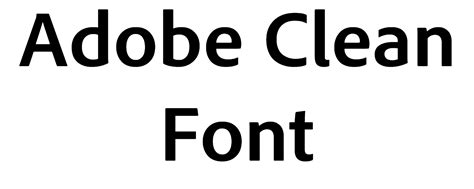
Discover the Best Adobe Clean Font Alternatives for Your Design Needs
Looking for a sleek and modern font alternative to Adobe Clean? Check out our curated list of top picks for your next design project.
Are you tired of using the same old fonts for your projects? Do you want to add a touch of elegance and sophistication to your designs? Look no further than Adobe Clean font alternative! This font is sleek, modern, and versatile, making it the perfect choice for any project. Whether you're creating a website, designing a poster, or crafting a business card, Adobe Clean will make your work stand out from the rest.
But what if you don't have access to Adobe Clean? Don't worry, there are plenty of alternatives that can give you the same polished look. One option is Helvetica, which has been a go-to font for designers for decades. Another is Proxima Nova, which combines the simplicity of Helvetica with a bit of personality. And if you're looking for something a little more unique, try Avenir, which has a clean, modern feel with a touch of warmth.
No matter which alternative you choose, make sure to experiment with different weights and styles to find the perfect fit for your project. With so many options available, there's no excuse for using boring, outdated fonts. Upgrade your designs today with an Adobe Clean font alternative!
Introduction
Adobe Clean is a widely-used sans-serif font that has become synonymous with Adobe's branding. The font is known for its clean and modern look, making it a popular choice for designers looking to create sleek designs. However, not everyone has access to the Adobe Creative Suite or wants to pay for the use of Adobe Clean. In this article, we will explore some alternative fonts that can be used as a replacement for Adobe Clean.
Roboto
Roboto is a Google font that has gained popularity in recent years due to its clean and modern look. Like Adobe Clean, Roboto is a sans-serif font that is easy to read and looks great on both digital and print media. The font was designed by Christian Robertson and was first introduced in 2011. Since then, it has become a favorite of many designers due to its versatility and readability.
Open Sans
Open Sans is another popular Google font that can be used as an alternative to Adobe Clean. The font was designed by Steve Matteson and was first released in 2011. Open Sans has a clean and modern look that makes it a popular choice for websites and other digital media. It is also a versatile font that can be used for both headings and body text.
Lato
Lato is a sans-serif font that was designed by Łukasz Dziedzic. The font has a clean and modern look that makes it a great alternative to Adobe Clean. Lato was first released in 2010 and has since become a popular choice for web designers due to its readability and versatility. It is also a free font that can be used for commercial projects.
Montserrat
Montserrat is a sans-serif font that was designed by Julieta Ulanovsky. The font has a clean and modern look that makes it a great alternative to Adobe Clean. Montserrat was inspired by the signage found in the Montserrat neighborhood of Buenos Aires, Argentina. The font was first released in 2011 and has since become a popular choice for both print and digital media.
Source Sans Pro
Source Sans Pro is a sans-serif font that was designed by Paul D. Hunt. The font has a clean and modern look that makes it a great alternative to Adobe Clean. Source Sans Pro was first released in 2012 and has since become a popular choice for web designers due to its readability and versatility. The font is also available for free on Adobe's website.
Nunito
Nunito is a sans-serif font that was designed by Vernon Adams. The font has a clean and modern look that makes it a great alternative to Adobe Clean. Nunito was first released in 2012 and has since become a popular choice for web designers due to its readability and versatility. The font is also available for free on Google Fonts.
Conclusion
In conclusion, there are many alternatives to Adobe Clean that can be used for both print and digital media. These fonts offer a clean and modern look that is similar to Adobe Clean while also being versatile and easy to read. Whether you are a designer looking for a new font or a business owner looking to create marketing materials, these fonts are sure to impress. So the next time you need a font that looks great and is easy to read, consider using one of these alternatives to Adobe Clean.
A Minimalist's Guide to Typography: Finding an Alternative to Adobe Clean FontTypography is a vital aspect of design that can make or break a project. It sets the tone and conveys a message. Adobe Clean Font has been a popular choice among designers, with its sleek and modern look. However, not everyone has access to this font, and even if they do, it may not be the best fit for their project. Seeking simplicity and a cleaner look? Here are some of the best Adobe Clean Font replacements.Saner Sans-Serif: Discovering Clean and Modern Fonts to Replace Adobe CleanSans-serif fonts are often the go-to for a clean and modern look. Replacements for Adobe Clean include Montserrat, Roboto, and Open Sans. Montserrat is a geometric sans-serif font that is versatile and easy to read. Roboto has a slightly wider letter spacing, making it perfect for larger blocks of text. Open Sans is a humanist sans-serif font that gives a friendly and approachable feel to any design.Going for a Sleek Look? Try These Adobe Clean Font AlternativesFor a sleek look, consider using Proxima Nova, Gotham, or Avenir. Proxima Nova is a modern geometric sans-serif font that is perfect for headings and subheadings. Gotham is a bold font that makes a statement and adds personality to any design. Avenir has a clean and simple look, with a variety of weights to choose from.The Best Clean Fonts to Use Instead of Adobe Clean – Can You Spot the Difference?If you're looking for a font that is similar to Adobe Clean but not an exact match, try Helvetica, Lato, or Futura. Helvetica is a classic font that has been around for decades, and it still looks great today. Lato is a versatile font that works well in both print and digital media. Futura has a geometric look and a modern feel, making it perfect for logos and branding.No More Adobe Clean? Not a Problem! Here are the Most Comparable Fonts to Choose FromIf you're looking for a font that is comparable to Adobe Clean in terms of style and simplicity, try Proxima Nova, Open Sans, or Montserrat. Proxima Nova has a similar geometric look and feel, while Open Sans and Montserrat are both humanist sans-serif fonts that are easy to read and versatile.For a Crisp and Clear Website: Alternatives to Adobe Clean FontWhen it comes to web design, legibility is key. Some great alternatives to Adobe Clean for websites include Roboto, Open Sans, and Montserrat. These fonts are all easy to read on screens of all sizes and are perfect for headings, subheadings, and body copy.Convincingly Clean: Fonts that Can Replace Adobe Clean in Your Next ProjectIf you're looking for a font that is clean and modern, but not too similar to Adobe Clean, try using Proxima Nova, Gotham, or Lato. These fonts all have their own unique personalities and can add a touch of flair to any design.Breaking Free from Adobe Clean: A Lineup of Clean and Contemporary FontsThere are plenty of clean and contemporary fonts out there that can replace Adobe Clean. Some great options include Proxima Nova, Open Sans, Roboto, and Montserrat. Each of these fonts has its own unique look and feel, and can help your design stand out from the crowd.A World of Options: Finding the Right Adobe Clean Font Replacement for Your ProjectIn the end, choosing the right font for your project comes down to personal preference and the requirements of the project itself. Whether you're looking for a sleek and modern font, a classic font with a timeless look, or something in between, there are plenty of great alternatives to Adobe Clean out there. So go ahead and experiment – you might just find your new favorite font.Looking for a sleek and modern font alternative to Adobe Clean? Well, you're in luck! There are various substitutes available in the market that can give you a similar look and feel. Although Adobe Clean is a great font, it's not always accessible to everyone as it comes at a high price. So, here are some pros and cons of using an Adobe Clean font alternative.Pros:1. Cost-effective: One of the significant advantages of using an Adobe Clean font alternative is that it is much cheaper than Adobe Clean itself. You can get a similar look for a fraction of the price.2. Variety: There are numerous alternatives available that mimic Adobe Clean's clean and modern look, giving you more options to choose from.3. Compatibility: Most Adobe Clean font alternatives are compatible with various devices and software, making it easier to use across multiple platforms.Cons:1. Quality: While most Adobe Clean font alternatives are of good quality, they may not have the same level of precision and attention to detail as Adobe Clean.2. Branding: If you're using an Adobe Clean font alternative for commercial purposes, it may not give your brand the same credibility as using the original Adobe Clean font.3. Licensing: Some Adobe Clean font alternatives may have specific licensing requirements, which can be confusing and time-consuming.In conclusion, while there are many benefits to using an Adobe Clean font alternative, it ultimately comes down to personal preference and the intended use of the font. So, explore your options, and choose the one that best suits your needs and budget.Greetings to all blog visitors! Are you someone who is in search of a clean and modern font that can add a touch of elegance to your designs? If yes, then you have come to the right place. Adobe Clean Font is one of the most popular font styles used by graphic designers around the world. However, it comes with a hefty price tag, making it inaccessible for many. But don't worry; we've got you covered with some fantastic alternatives that are equally impressive.
Firstly, let's talk about 'Montserrat.' This font style is an excellent alternative to Adobe Clean Font, as it has a similar modern look and is easy to read. Montserrat is a versatile font that can be used for both headings and body text. It comes in various weights, which gives you the flexibility to use it in different designs. Moreover, this font is available for free on Google Fonts, making it accessible to everyone.
Another great alternative to Adobe Clean Font is 'Proxima Nova.' This font style has a sleek design, making it perfect for modern websites and branding projects. Proxima Nova is also very legible, which ensures that your message is conveyed effectively. Though it is not a free font, its versatility and readability make it worth the investment.
In conclusion, Adobe Clean Font is undoubtedly a remarkable font style, but it's not the only option out there. Montserrat and Proxima Nova are two fantastic alternatives that can help you achieve the same aesthetic without breaking the bank. Now that you know about these options, go ahead and experiment with them to make your designs stand out!
Adobe Clean font is a popular choice among designers and businesses for its clean and modern style. However, some may be looking for an alternative due to licensing or budget constraints. Below are some frequently asked questions about Adobe Clean font alternatives:
What are some alternatives to Adobe Clean font?
- Proxima Nova
- Helvetica Neue
- Avenir
- Gotham
- Montserrat
These fonts share similar characteristics with Adobe Clean font, such as a modern and minimalistic design. They are also widely available and can be used across various platforms.
Are there any free alternatives to Adobe Clean font?
- Google Fonts offers several free options that are similar in style, such as Roboto and Open Sans.
- Montserrat is also available for free and has a wide range of weights and styles.
While these fonts may not have the exact same look as Adobe Clean font, they are great options for those on a tight budget.
Overall, there are many great alternatives to Adobe Clean font that can help achieve a similar look and feel. It is important to consider factors such as licensing and budget when choosing a font for your project.